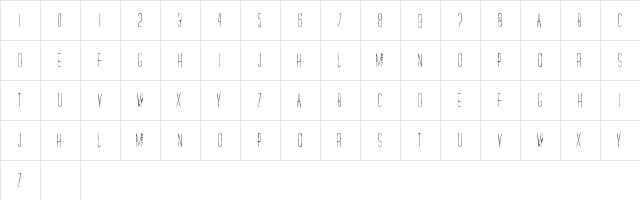
RedlightDistrict Regular
Design Context for RedlightDistrict Typeface
RedlightDistrict takes a measured approach to typography — its balanced proportions and neutral character make it a reliable workhorse for both digital and print work. The delicate stroke weight brings airiness and refinement to layouts.